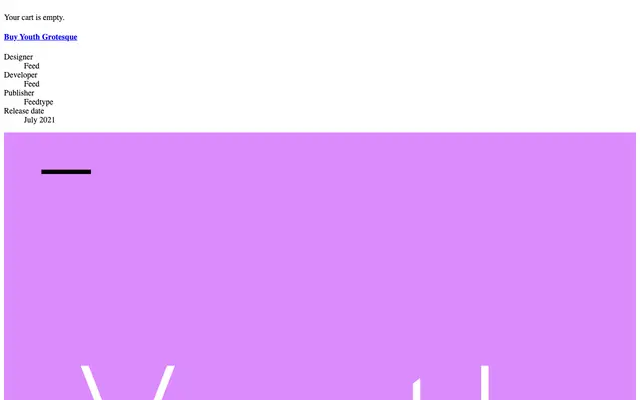
Youth Grotesque
A straightforward grotesque sans from Canadian foundry Feedtype, built for editorial and screen use.
Youth Grotesque is a clean grotesque sans from Montreal-based Feedtype, offering four weights from Regular to Black. The design sits within the European grotesque tradition, prioritising legibility and neutral character over personality. Suited to editorial layouts, interface design and branding that calls for an unfussy sans.
Named explicitly as a grotesque, Youth Grotesque follows the conventions of the genre with a functional, upright structure typical of European grotesque sans-serifs.